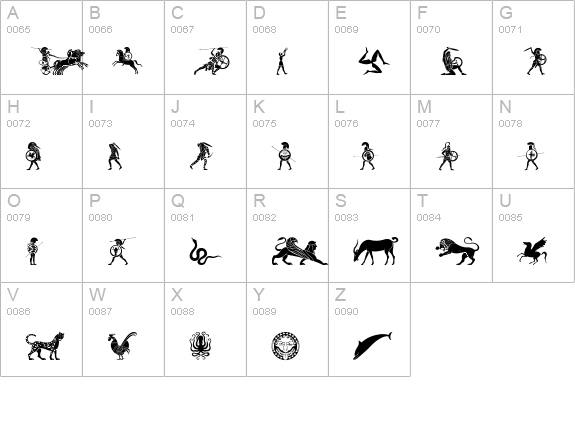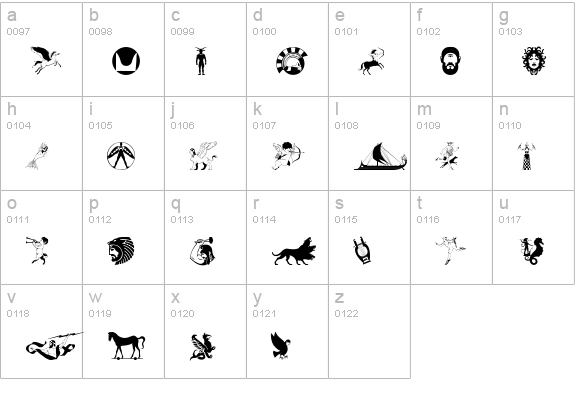
Mythical & Hoplite Noodgies Font Details
Introducing the captivating and powerful Mythical & Hoplite Noodgies font! This unique typeface combines elements of ancient mythology with the strength and valor of Greek hoplites, resulting in a truly mesmerizing and dynamic design. The intricate details and bold strokes of this font evoke a sense of mystery and bravery, making it perfect for projects that demand attention and stand out from the crowd. Whether you're working on a logo, poster, or branding project, Mythical & Hoplite Noodgies font will add a touch of mythical charm and warrior spirit to your designs. Its versatility allows for both elegant and striking compositions, ensuring that your message is conveyed with impact and style. And the best part? Mythical & Hoplite Noodgies font is available for free download at FontsMarket.com! So don't miss out on this opportunity to enhance your creative projects with this exceptional font. Embrace the power of ancient legends and modern design with Mythical & Hoplite Noodgies font today!